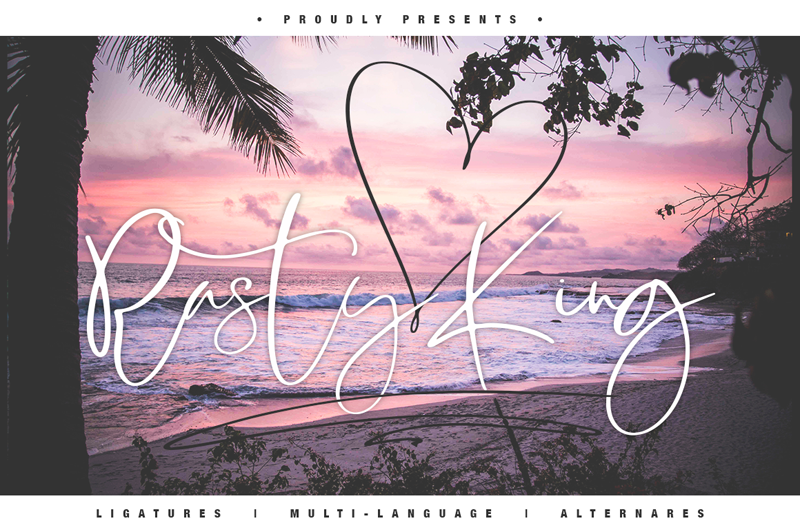
Preview and download Rasty King Font. Created by Alexander Tiunov in Script Calligraphy styles with Free for personal use license.
Rasty King - a new fresh handmade calligraphy font. Very suitable for greeting cards, branding materials, business cards, quotes, posters, and more!This font are perfect for wedding postcard. Or you can create perfect and unique design of your logo, blog, stationery, marketing, magazines and more :) Features : UpperCase & Lowercase Numerals & Punctuations Multilingualcharacters(A������C�D�E����I����N�O������U����WYݟ� - ƌ��������������������������������) LIGATURES 39 ALTERNATES and Others!!! ZIP INCLUDED: Rasty King OTF Rasty King TTF Rasty King WOFF Please contact us if you have any questions. THANK YOU!!! by Besttypeco |